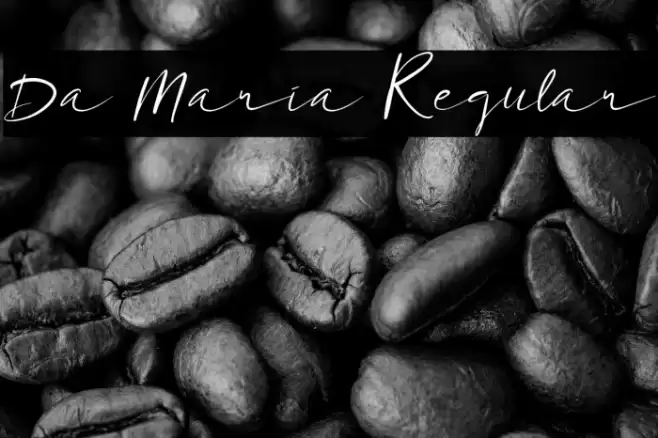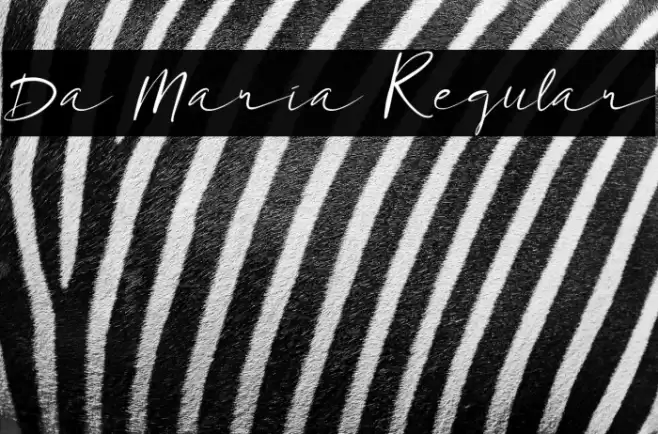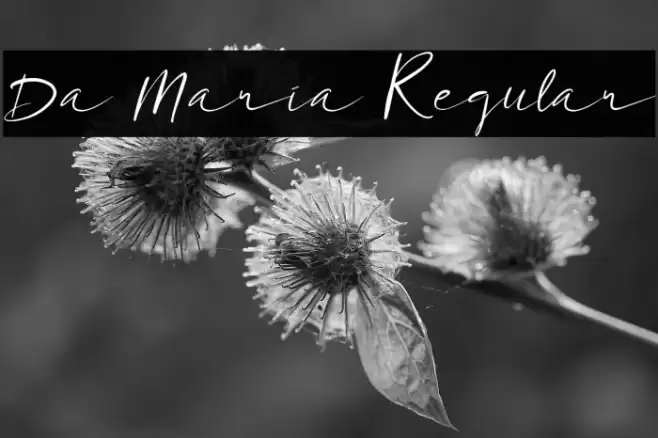
Da Maria Regular Font
Da Maria Regular Description
This font exudes a lively and dynamic character with its fluid, handwritten style. The letters are elegantly crafted with a natural flow, giving a sense of movement and spontaneity. The uppercase letters are bold and slightly slanted, while the lowercase letters maintain a consistent rhythm with gentle curves and loops. The numerals are distinct and easy to read, complementing the overall aesthetic. Special characters are thoughtfully designed, adding to the font's versatility. The strokes vary in thickness, providing a medium contrast that enhances readability without sacrificing style.
| Use Case | Logos, Invitations, Artistic projects |
| Proposed Projects | Ideal for wedding invitations, greeting cards, personal branding, and artistic projects. |